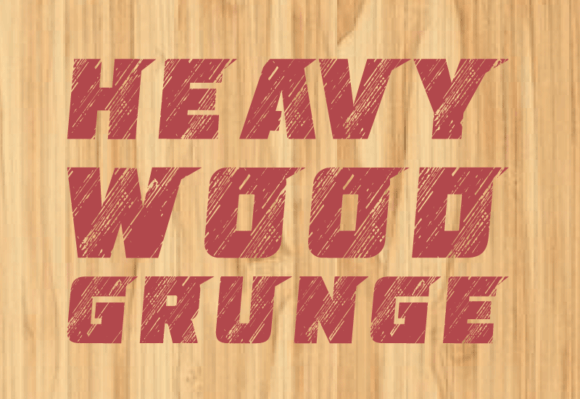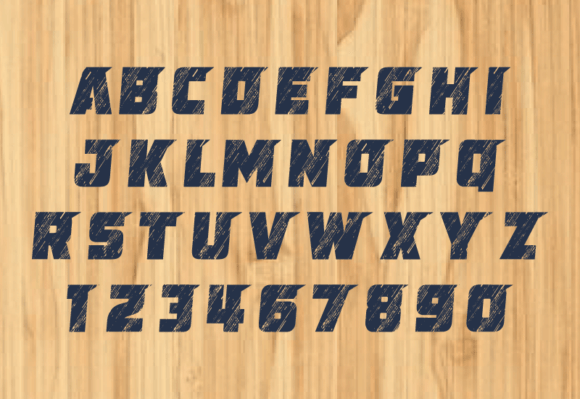
Unleash the Power of Rebellion: Introducing Heavy Wood Grunge Font
Step into a world of unbridled originality with our ‘Heavy Wood Grunge’ sans-serif typeface. Famed for its bespoke and rebellious design, Heavy Wood Grunge is more than merely a collection of letters and symbols. Every coarse, raw stroke is imbued with an earthy, distressed texture, defining an ambiance teeming with grit and defiance.
The Essence of Heavy Wood Grunge
Heavy Wood Grunge is a font that embodies the spirit of divergence. Its bold fearlessness and streak of individuality unabashed, making it the perfect choice for designers and crafters looking to make a statement. With its unique blend of ruggedness and sophistication, Heavy Wood Grunge is designed to encapsulate the essence of rebellion, perfect for projects that demand a strong visual identity.
Heavy Wood Grunge boasts a distinctive design that sets it apart from other fonts. Its key characteristics include:
- Distressed Texture: Every stroke of Heavy Wood Grunge features a raw, earthy texture that gives it a worn, vintage look.
- Bold and Fearless: This font is not for the faint of heart. Its bold lines and rugged edges make it perfect for projects that demand attention.
- Unique Letterforms: Each letter and symbol in Heavy Wood Grunge has been carefully crafted to convey a sense of individuality and rebellion.
Perfect for Daring Designs
Heavy Wood Grunge is the perfect choice for designers and crafters looking to create bold, eye-catching projects. Its versatility makes it suitable for a wide range of applications, including:
- Poster Design: Create striking poster visuals that demand attention with Heavy Wood Grunge.
- Album Art: Give your album art a bold, rebellious look with Heavy Wood Grunge.
- Streetwear Identities: Use Heavy Wood Grunge to create striking streetwear identities that stand out from the crowd.
Why Choose Heavy Wood Grunge?
With so many fonts available, why choose Heavy Wood Grunge? Here are just a few reasons why this font stands out:
- Uniqueness: Heavy Wood Grunge is a one-of-a-kind font that will set your designs apart from the rest.
- Versatility: This font can be used for a wide range of projects, from posters to album art and streetwear identities.
- Rebellious Spirit: Heavy Wood Grunge embodies the spirit of rebellion, making it perfect for projects that demand a strong visual identity.
Heavy Wood Grunge is more than just a font – it’s a statement. It’s a declaration of independence, a rejection of the ordinary, and a celebration of individuality. With its bold fearlessness and streak of rebellion, Heavy Wood Grunge is the perfect choice for designers and crafters looking to make a statement. So why settle for ordinary when you can have extraordinary? Let Heavy Wood Grunge amplify your design ethos and echo your message with a resonance that’s hard to ignore.